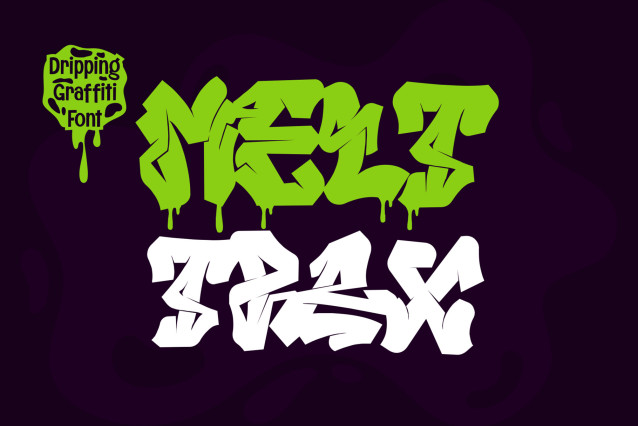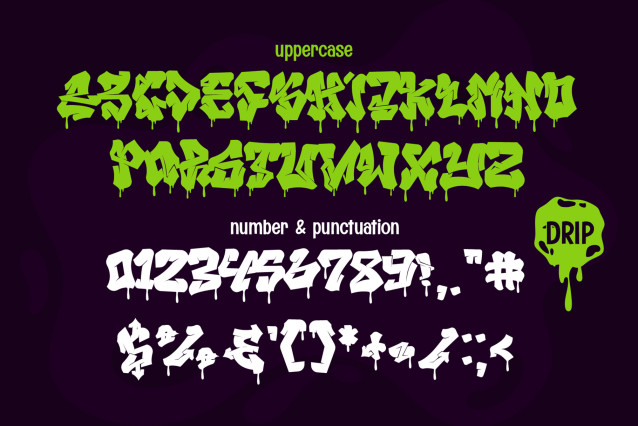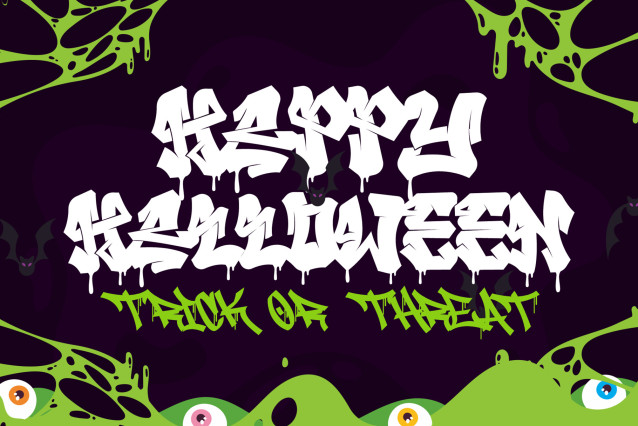
Melttrax Font
Melttrax Font is a high-impact wild graffiti font that captures the rebellious energy of the streets. This all-caps typeface is made for creators who want their work to speak loud, bold, and unapologetically raw. Designed with powerful uppercase letters and expressive strokes, Melttrax features both clean and dripping styles, offering creative control for any visual need.
Whether you’re working on streetwear labels, urban music promotions, edgy posters, or video thumbnails, Melttrax delivers an unmistakable street statement. Its wildstyle form, dripping contours, and organic rhythm make it one of the most authentic graffiti fonts available today.